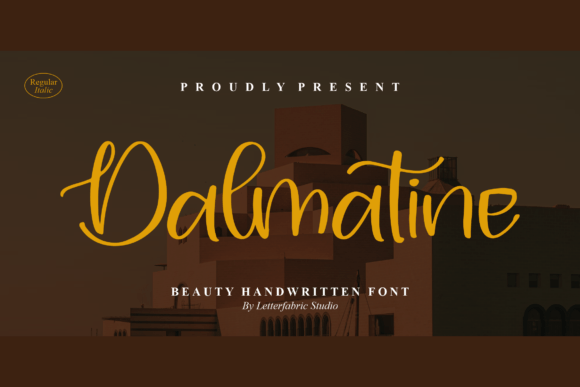
Introduce yourself to the world of Dalmatine - an exquisite handwritten font family, meticulously crafted by Letterfabric. With its captivating curves and enchanting loops, Dalmatine embodies the essence of elegance and charm.
Every design, every letter in Dalmatine is a testament to the artistry behind it. Its graceful strokes and harmonious flow will captivate your audience, leaving a lasting impression that lingers long after they encounter your creations.
Whether you're an aspiring designer seeking to add a touch of sophistication to your logos, or a seasoned professional looking to elevate your branding projects, Dalmatine is the perfect choice. Its versatility knows no bounds, making it an ideal companion for homeware designs, product packaging, and even personal touches like mugs and tote bags.
The beauty of Dalmatine extends far beyond its visual appeal. It's a font that speaks to the heart, evoking emotions and inspiring creativity. Its delicate strokes can transform simple quotes into profound statements, adding a layer of depth and meaning to your words.
Imagine your posters adorned with Dalmatine's enchanting script, captivating the attention of all who lay eyes upon them. Picture your invitations and greeting cards, imbued with a touch of elegance that reflects the warmth and joy of your special occasions.
Dalmatine is not just a font; it's a key that unlocks a world of creative possibilities. It's an invitation to let your imagination soar, to express yourself in ways that are both beautiful and impactful.